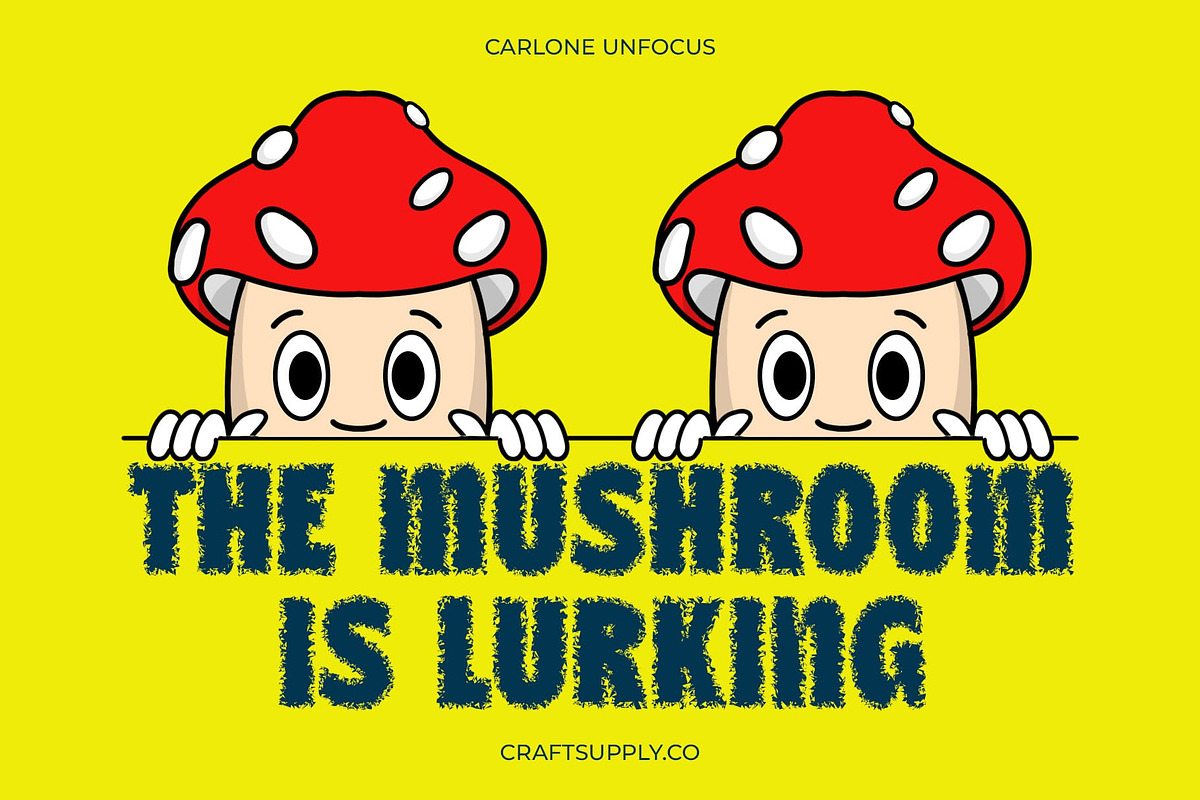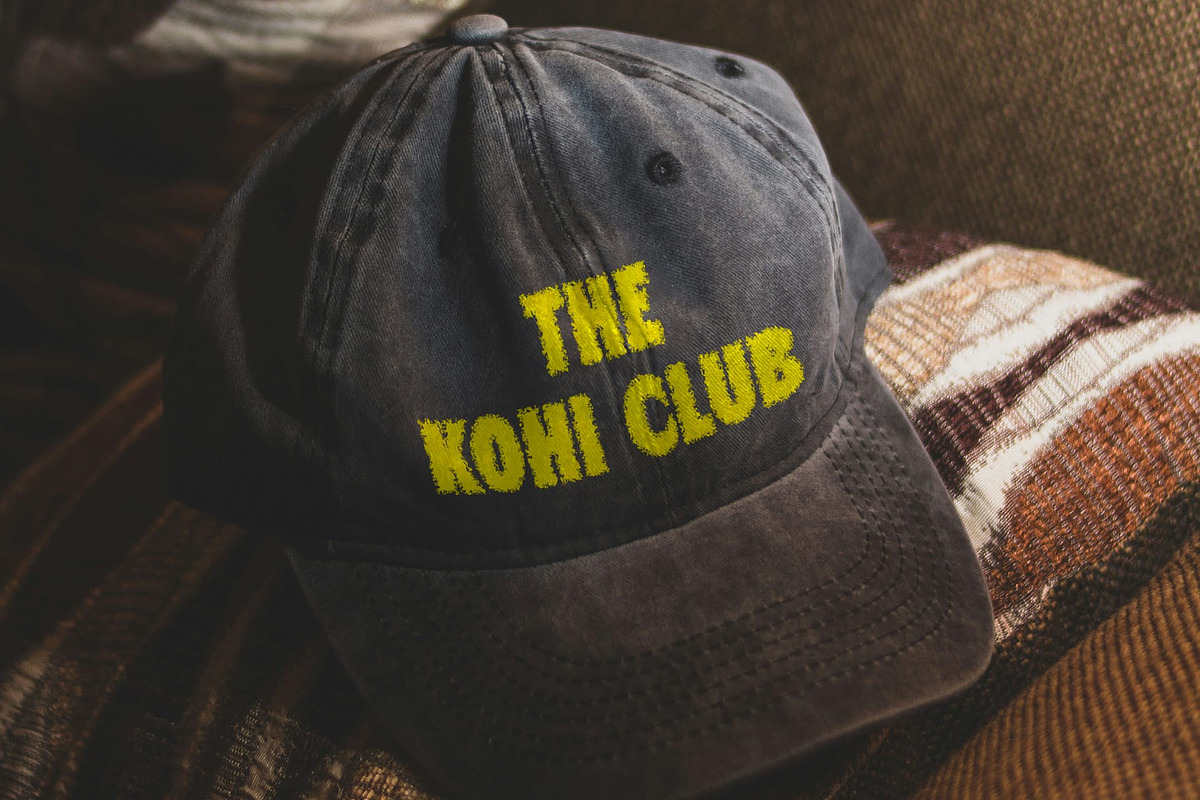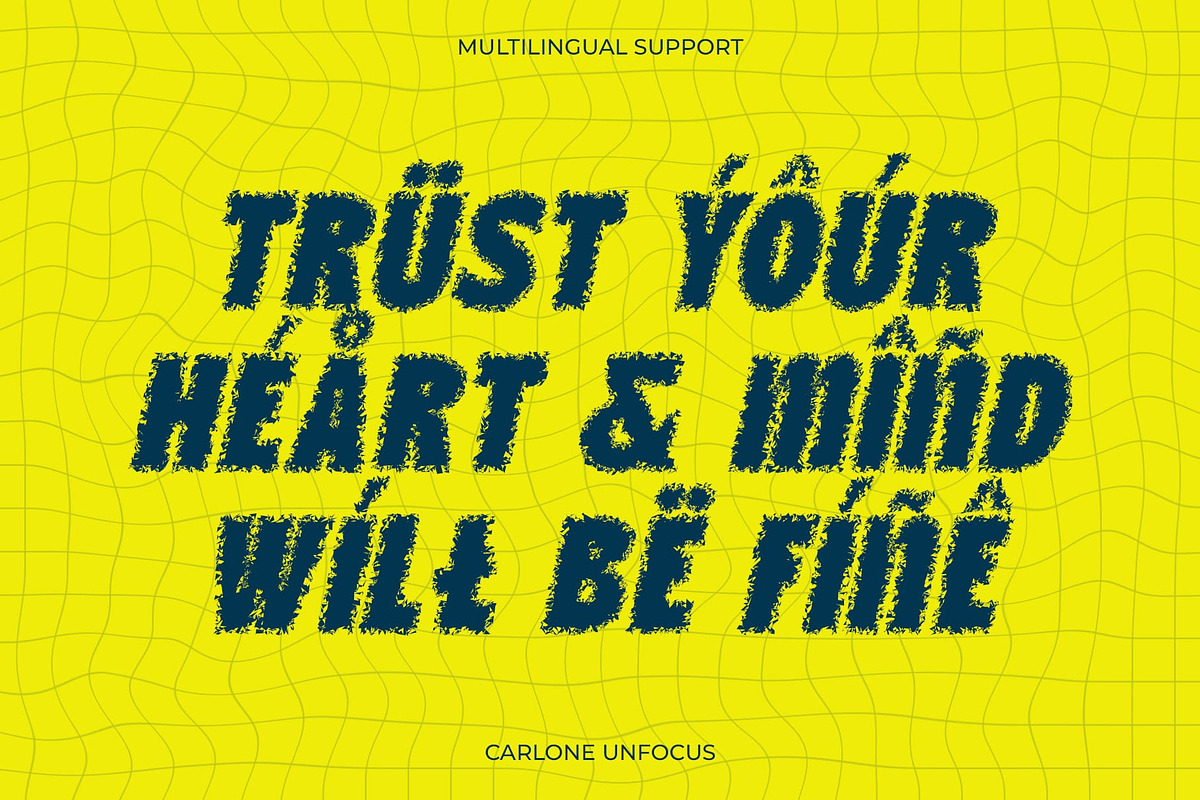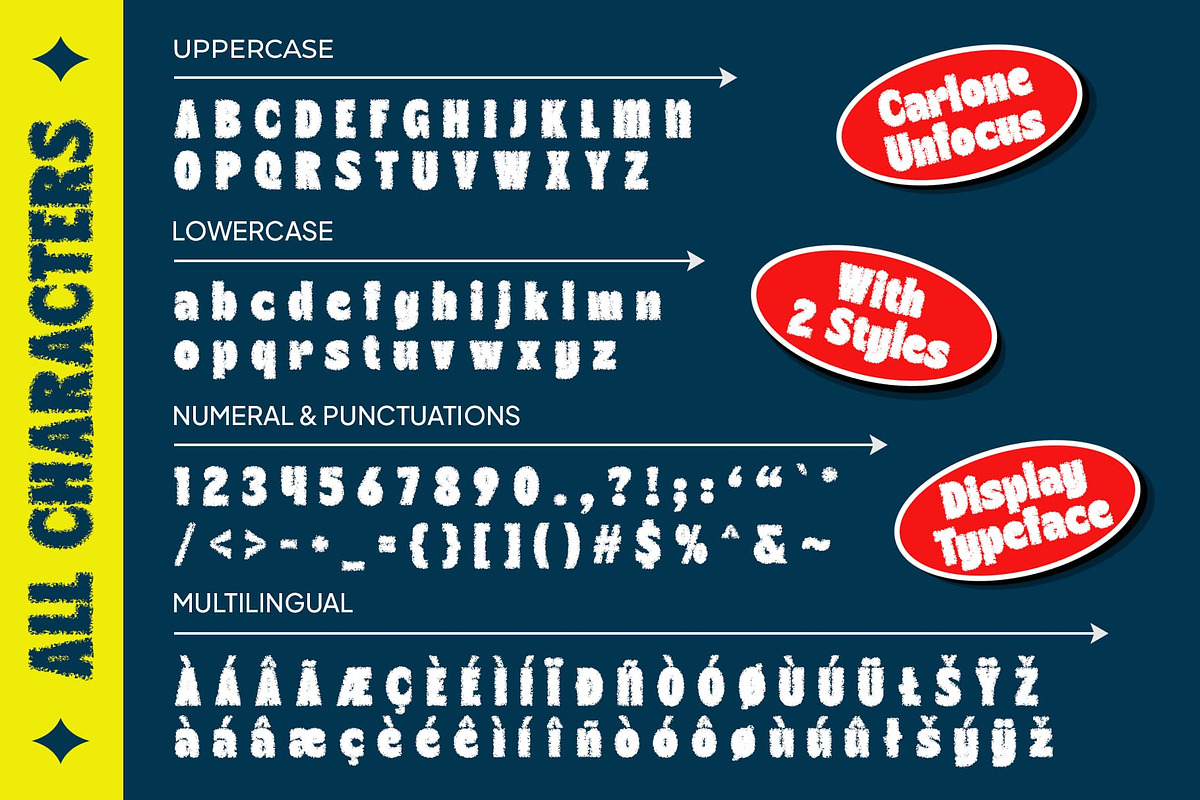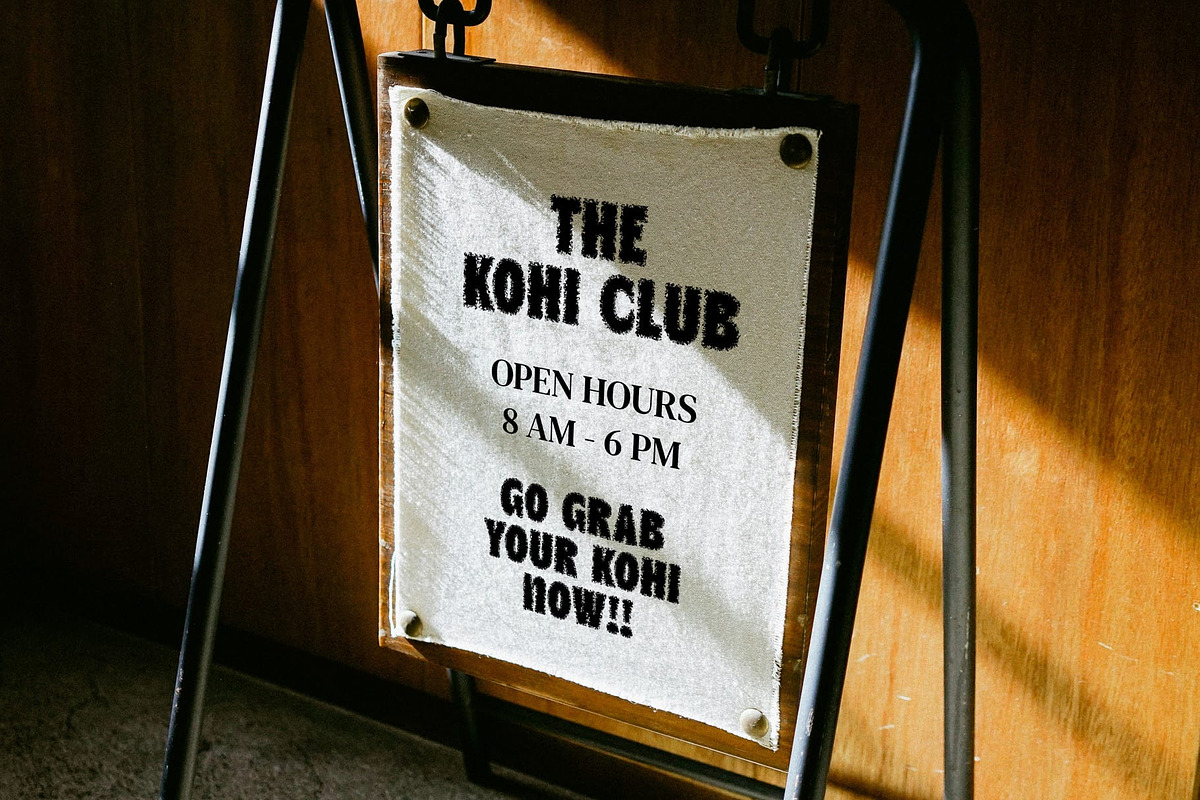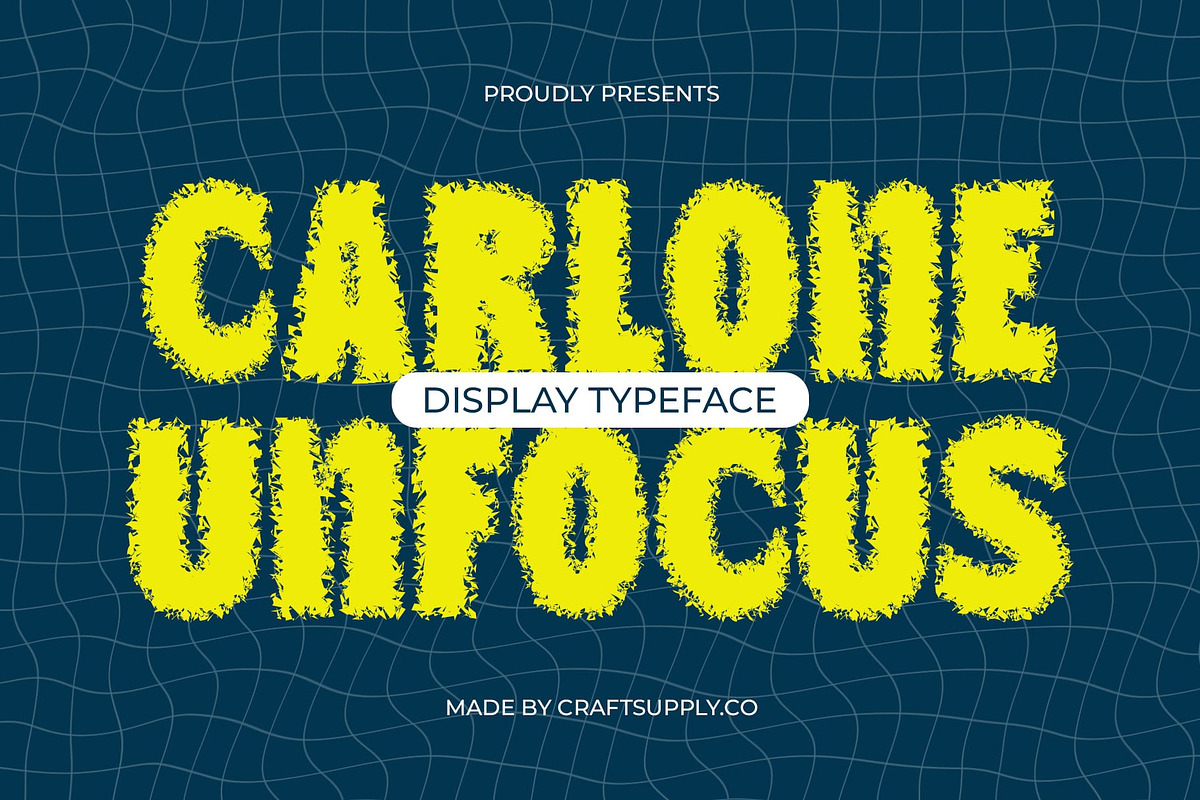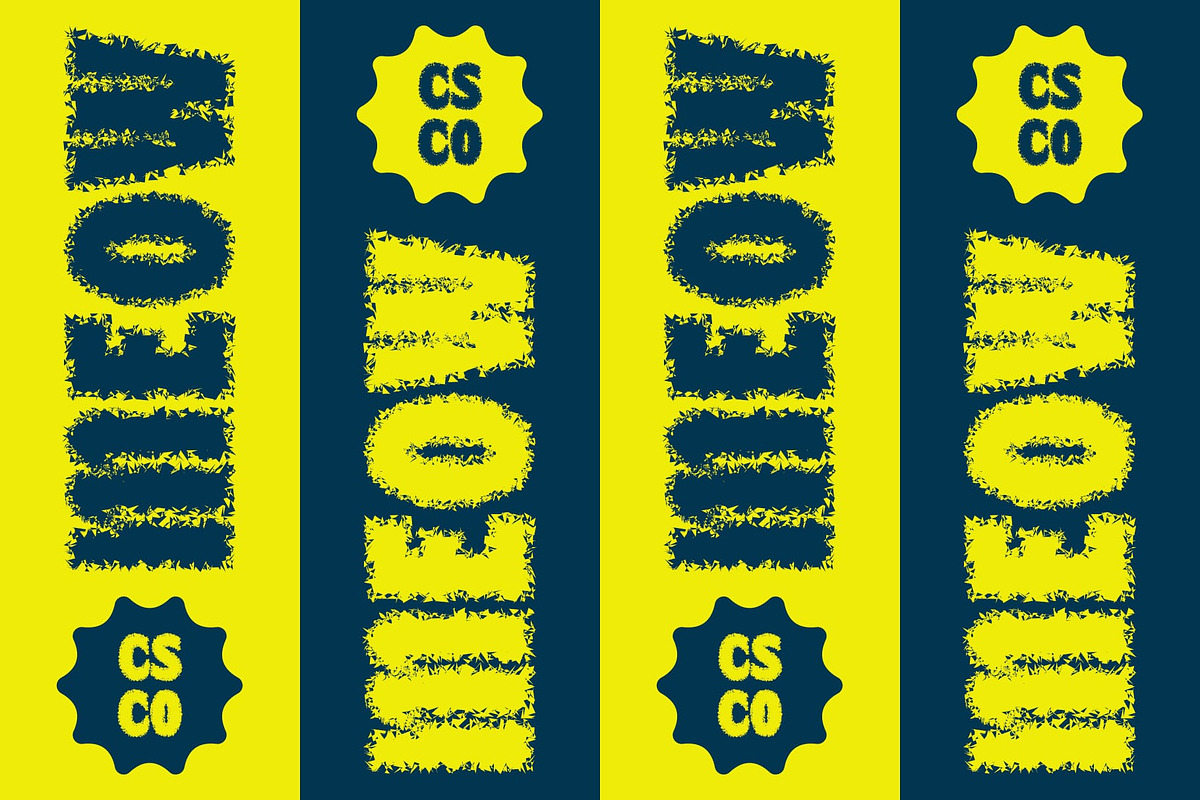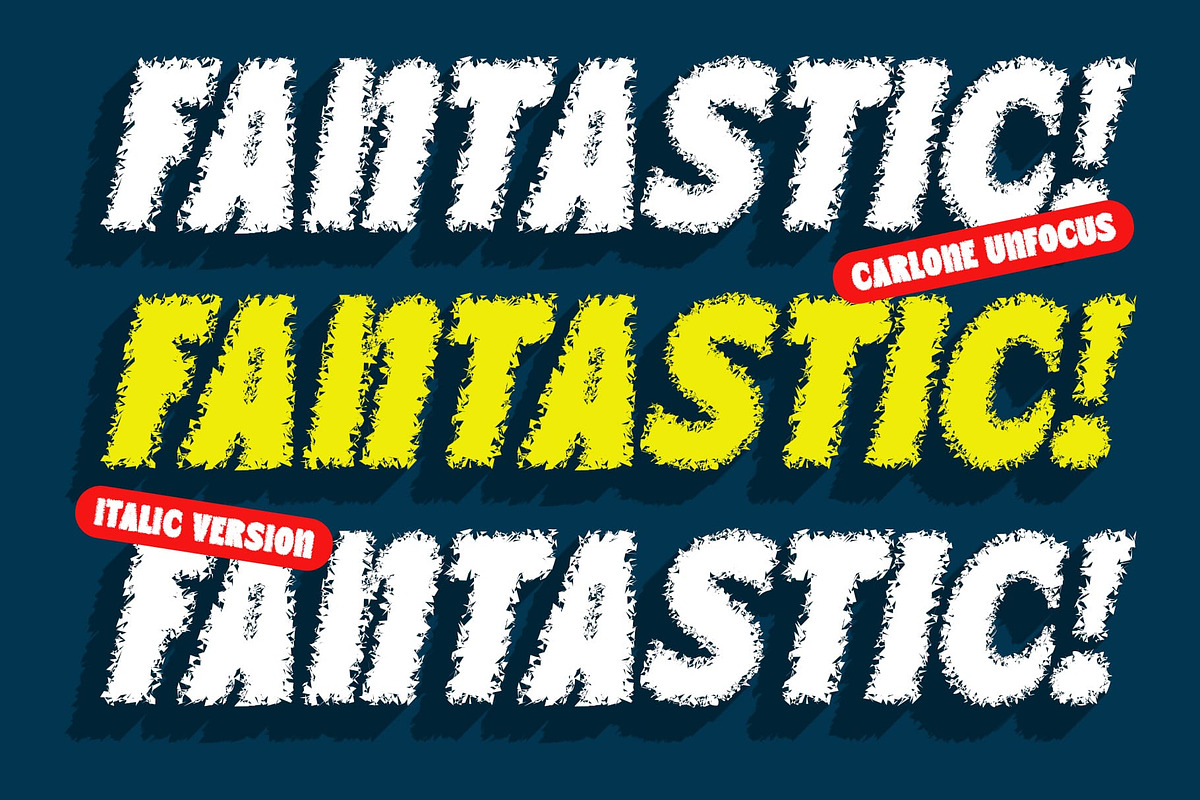
Carlone Unfocus
Carlone Unfocus: Bold and Artistic Sans Serif Font with Unfocused Effect
Bold Font with Unfocused Effect
Carlone Unfocus is a sans-serif font that features a bold form with an unfocused effect, offering an intriguing and unique appearance. The bold shape provides a thick and daring impression, while the unfocused effect adds an artistic touch and draws attention.
Ideal for Attractive and Distinct Designs
This font is suitable for designs that aim to highlight text with an attractive and distinct appearance. Whether you’re creating posters, album covers, or other creative projects, Carlone Unfocus can help your text stand out with its bold and artistic style.
Versatile and Eye-Catching
Despite its boldness, Carlone Unfocus is versatile and eye-catching. Its unfocused effect adds depth and dimension to your text, making it ideal for designs that require a dynamic and engaging look.
Enhance Your Designs with Carlone Unfocus
With its bold form and unfocused effect, Carlone Unfocus is the perfect font for designs that need to make a statement. Whether you’re designing posters, album covers, or other creative projects, this font will add an attractive and distinct appearance to your text.